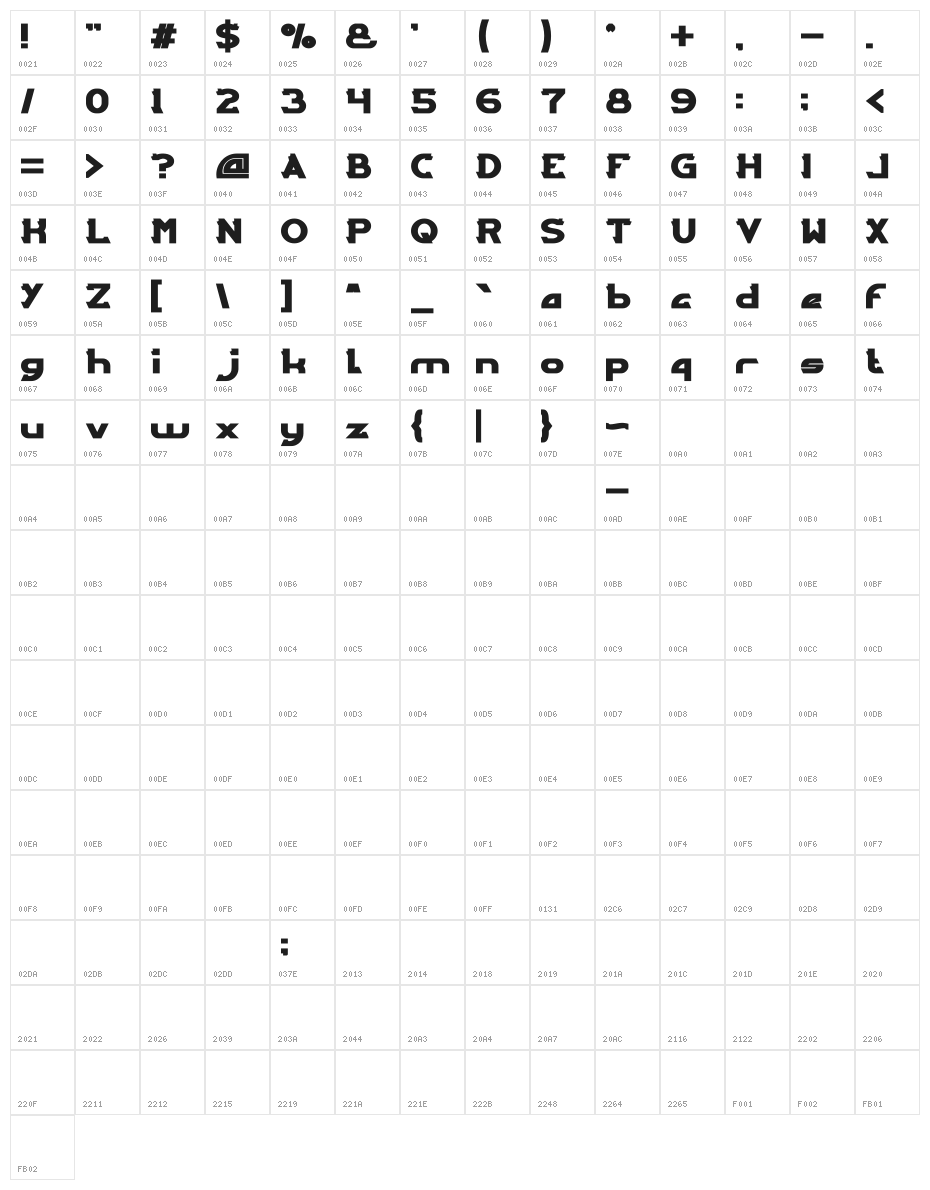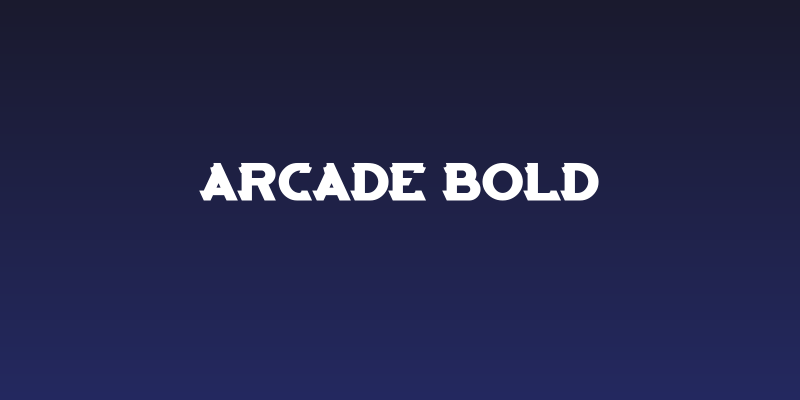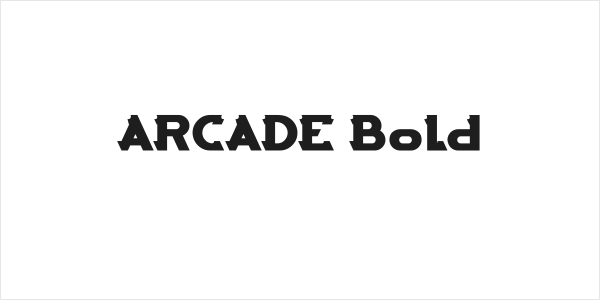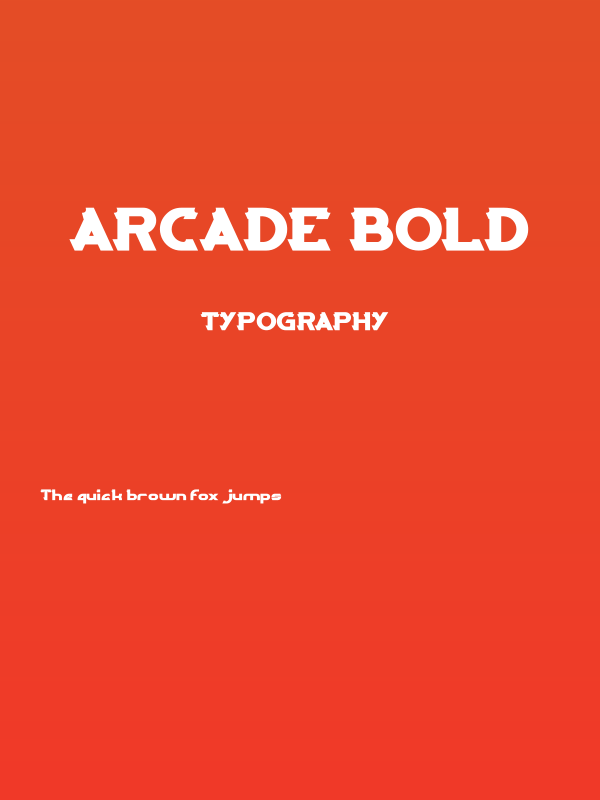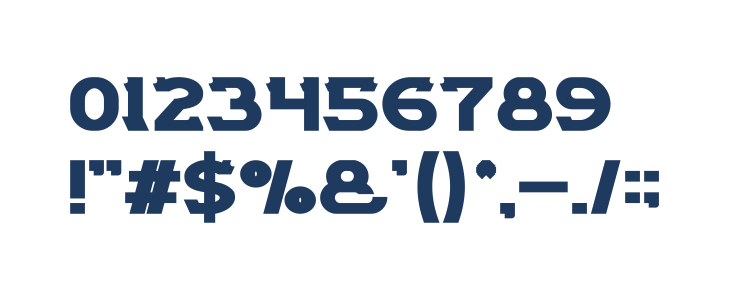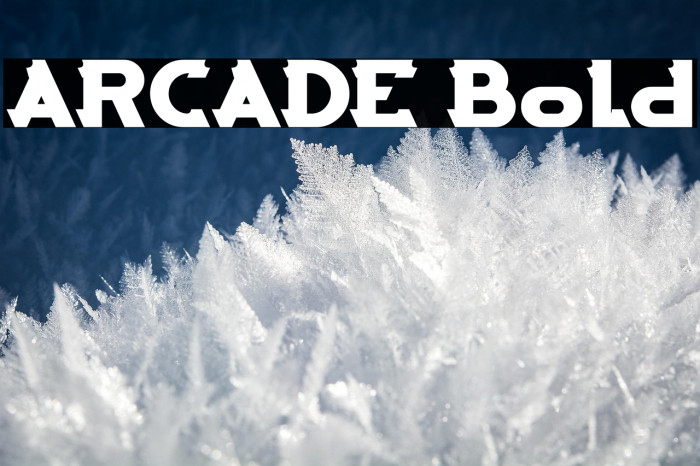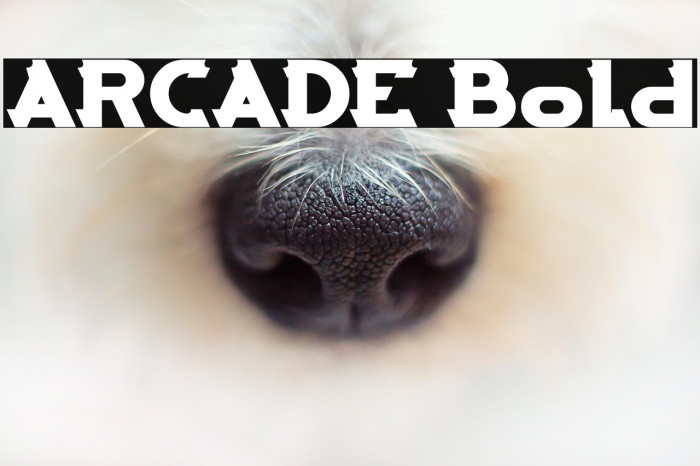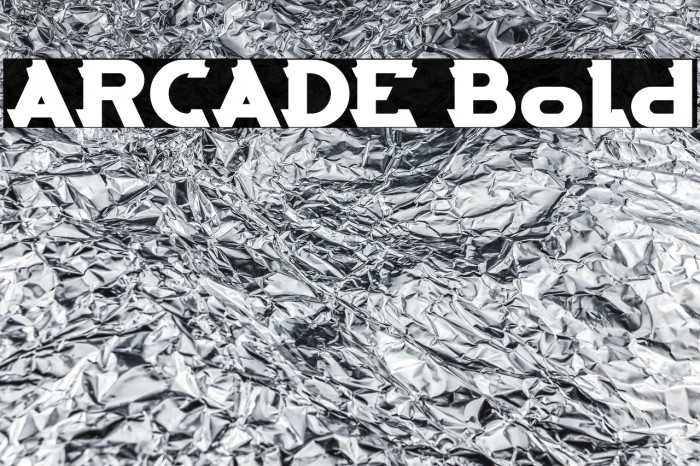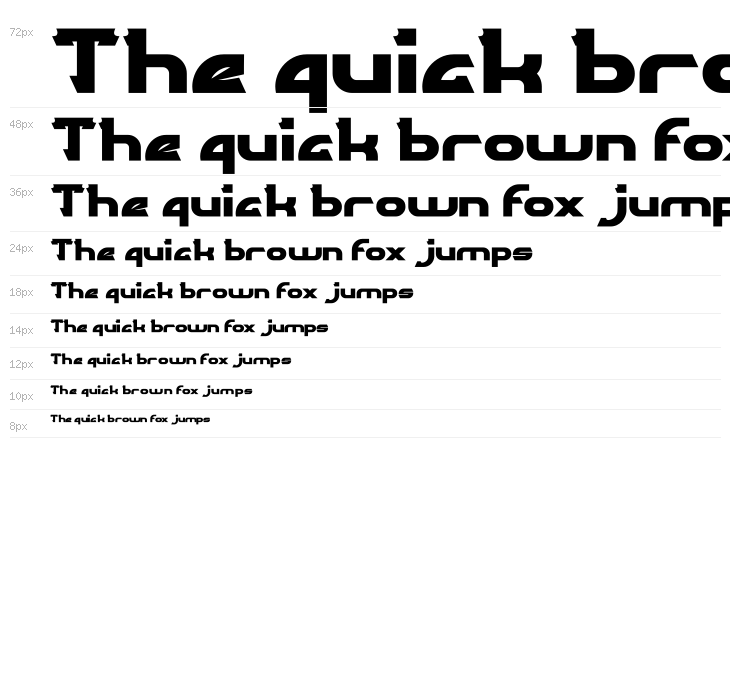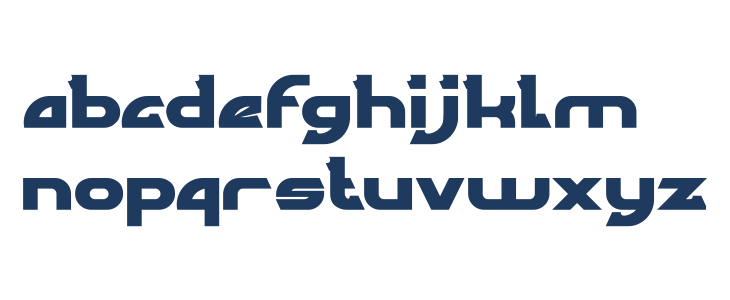
ARCADE Bold Font
ARCADE Bold Description
This font features a bold and dynamic design with a distinctly futuristic and geometric style. The uppercase letters are characterized by sharp angles and strong lines, giving them a powerful presence. The lowercase letters maintain a similar aesthetic but with slightly softer curves, providing a balanced contrast. Numbers and special characters follow the same bold and angular design, ensuring consistency across all characters. The font's unique style makes it ideal for projects that require a modern and eye-catching look.
ARCADE-BOLD UPPERCASE
ARCADE-BOLD LOWERCASE
ARCADE-BOLD OTHER CHARS
| Proposed Projects | Ideal for video game titles, tech branding, posters, and digital media. |